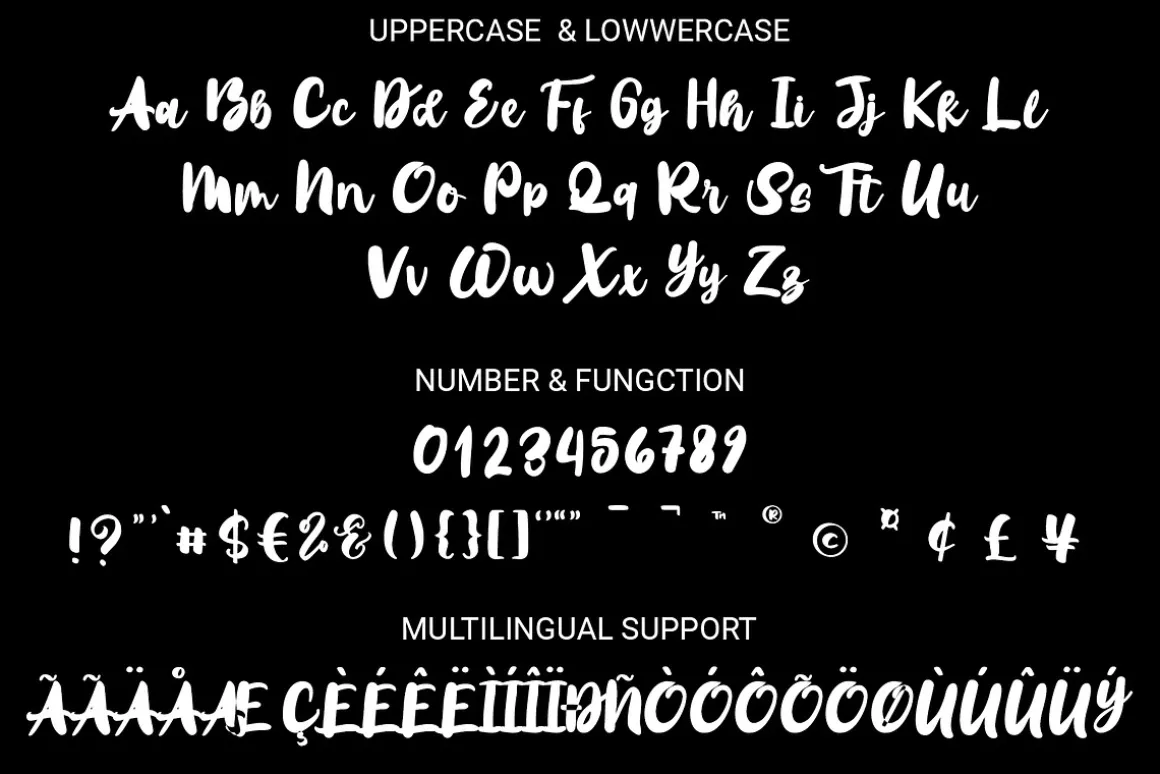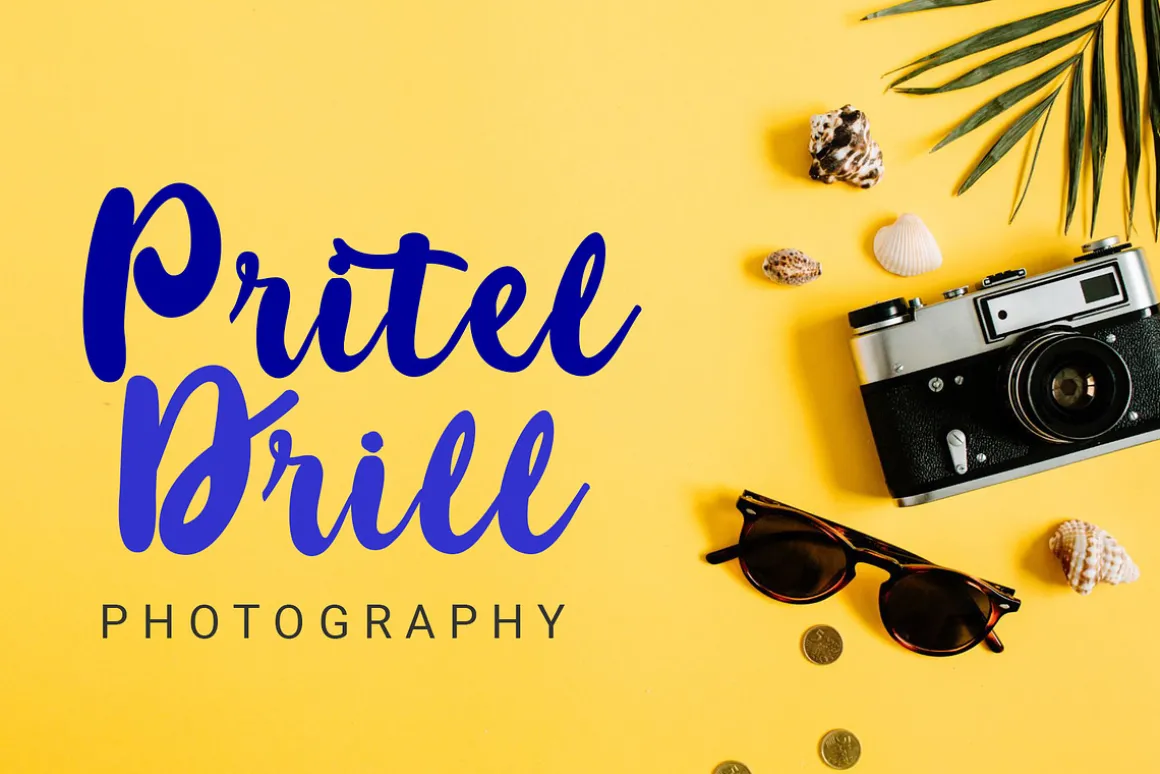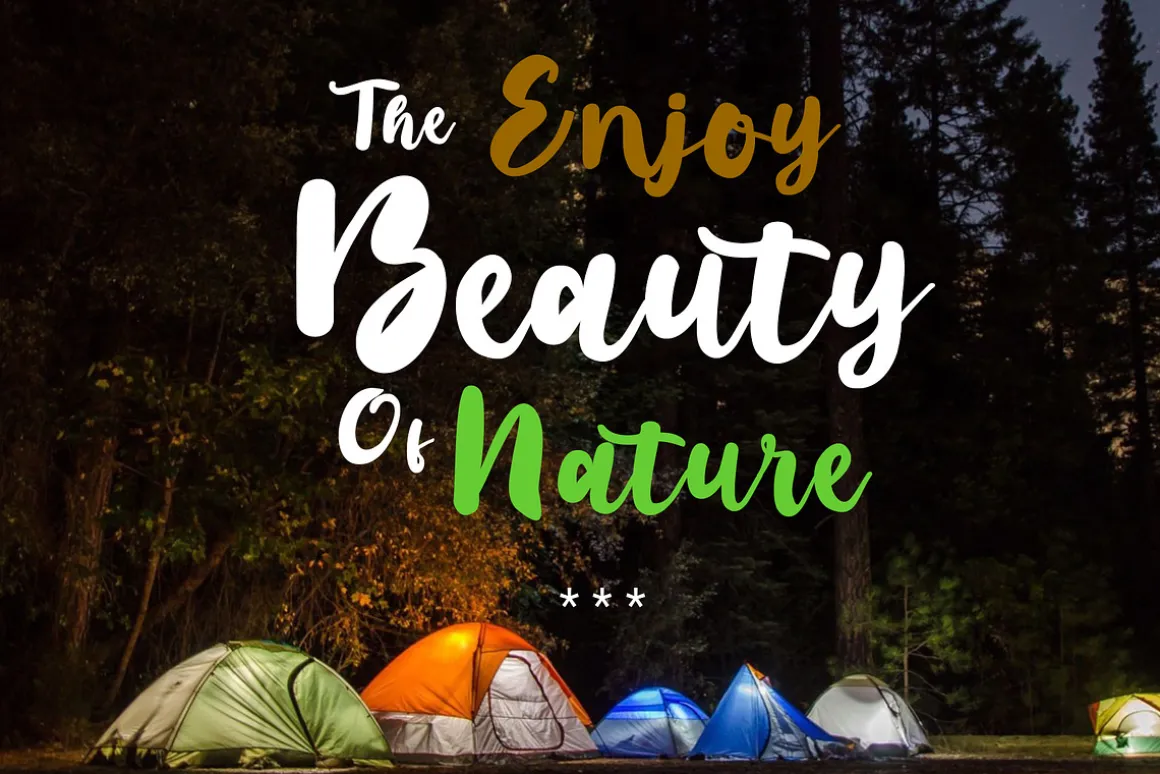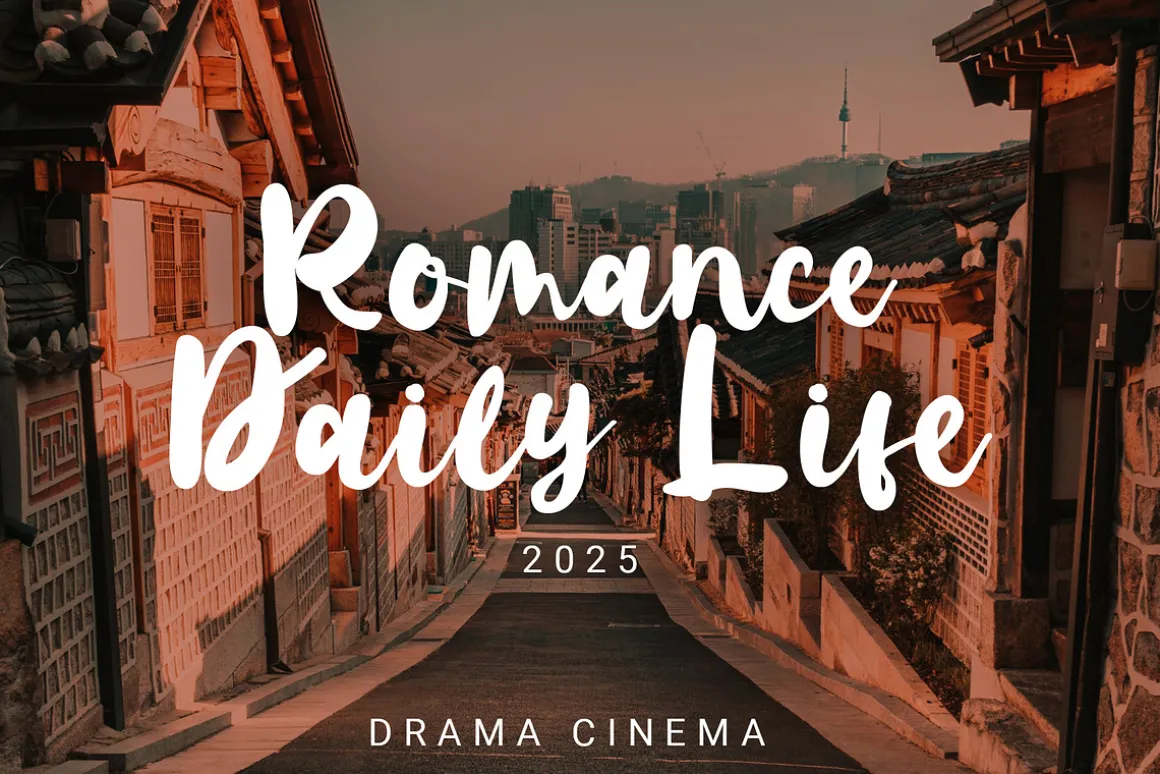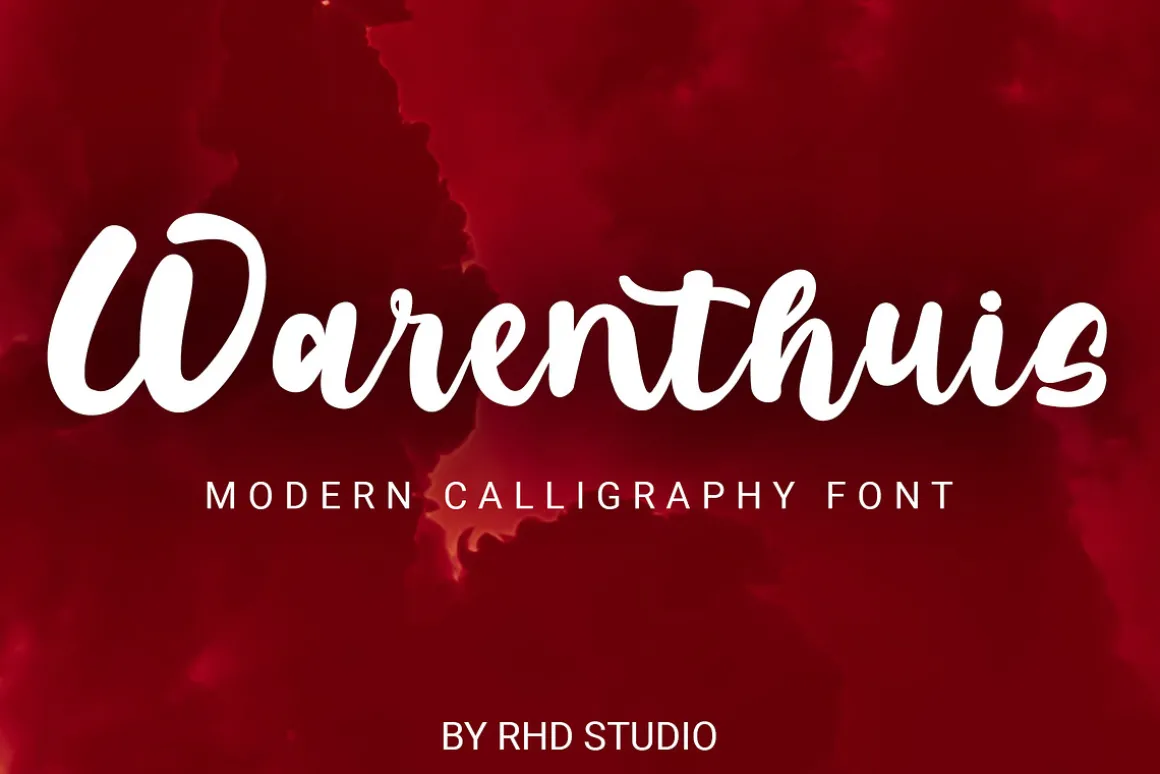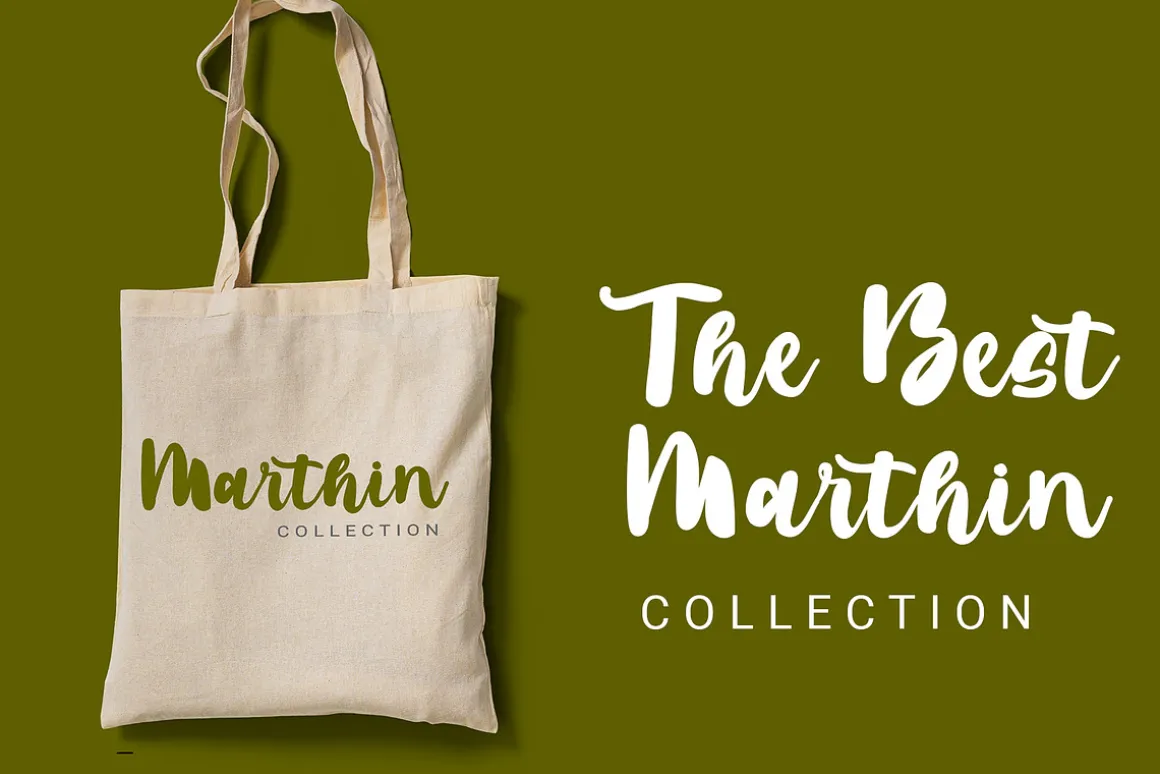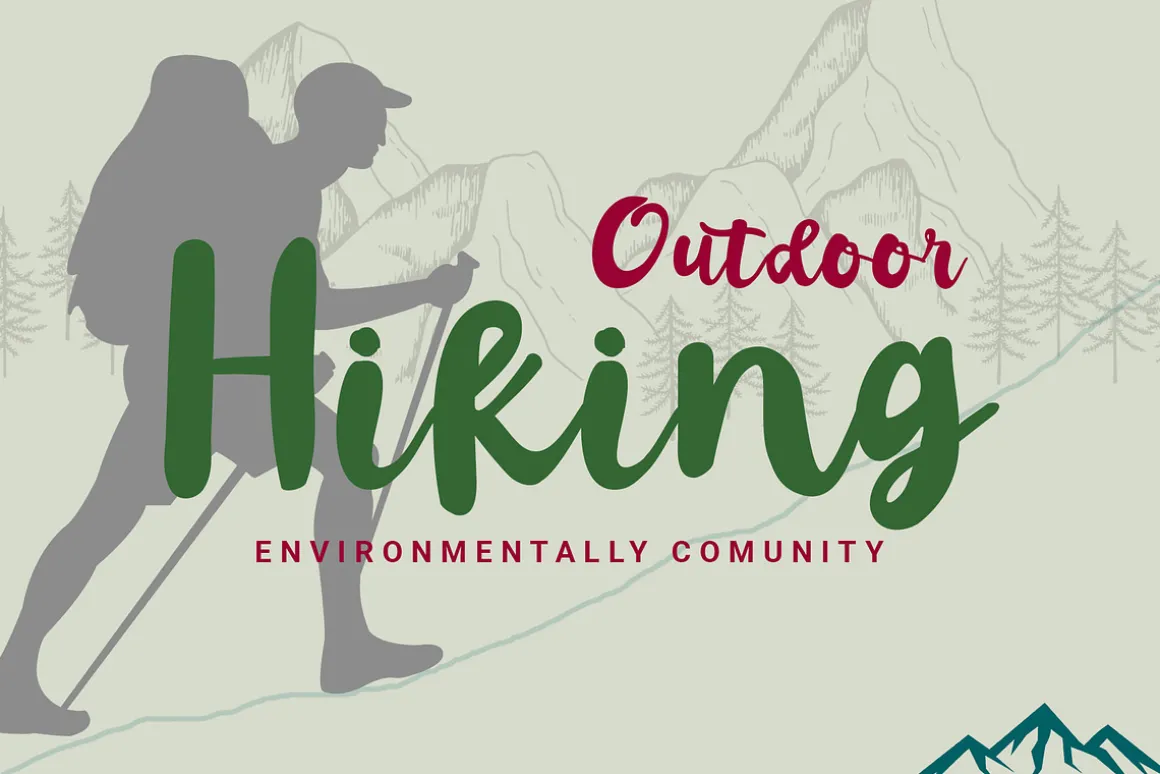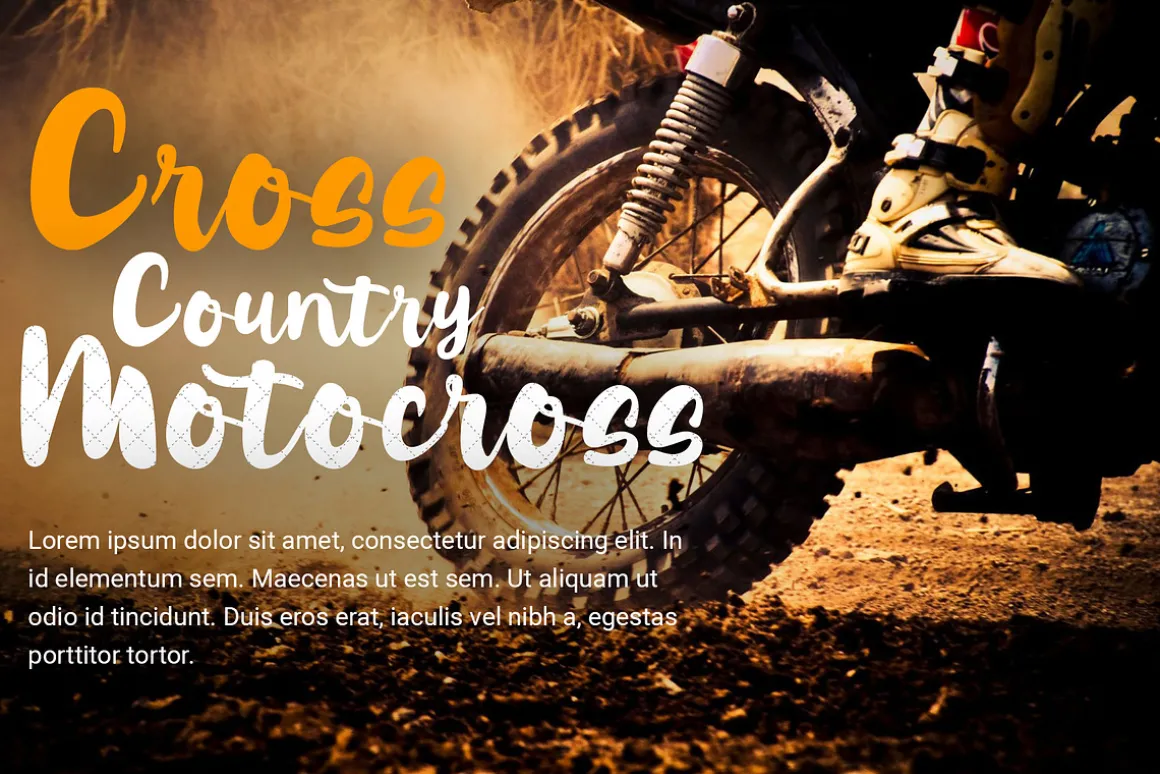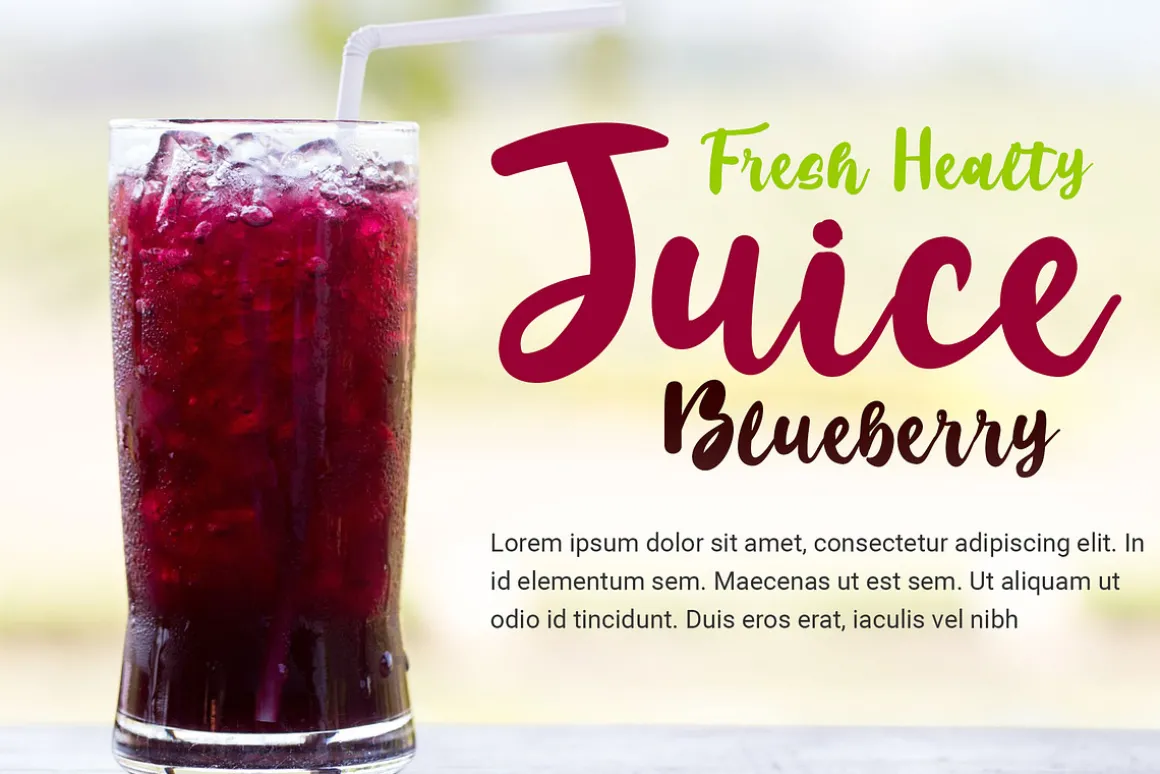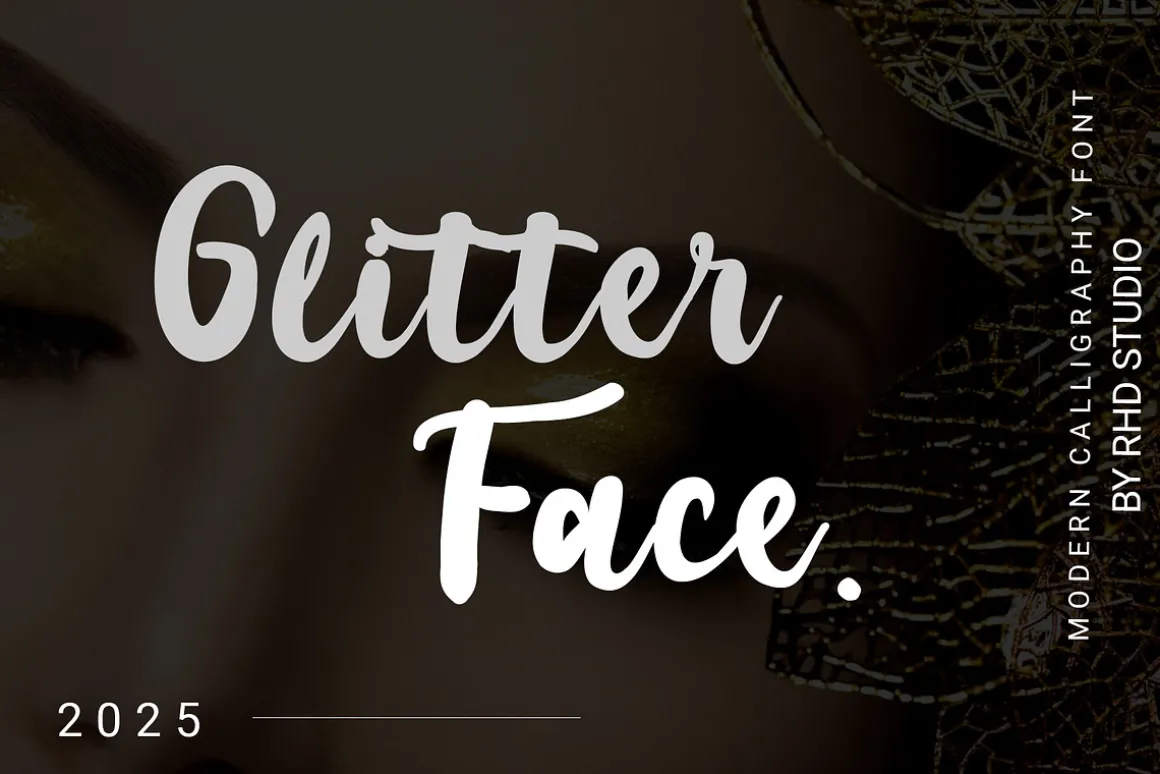
Warenthuis Brush Handwritten Font with Handmade character. Warenthuis bring authentic handwritten font to make your design project stand out! Warenthuis is a perfectly choice for any creative endeavor, creating, modern, chic, lifestyle design such as logotype, title, cover, branding, invitations, wedding designs, display and magazine, social media posts, advertisements, printed quotes, product packaging, corporate brand, product designs, labels, photography, watermarks, special events and any other project with modern touch.
Uppercase and Lowercase letters
Numbering and Punctuations
Ligarure
Multilingual Support